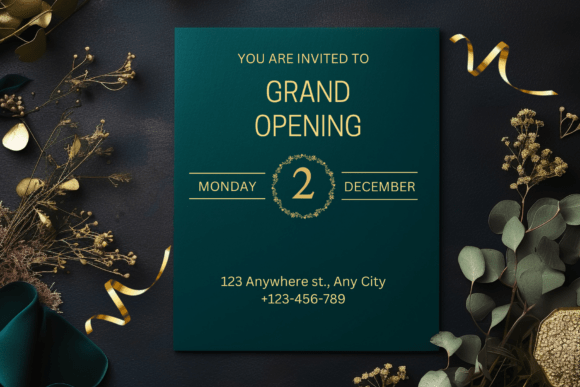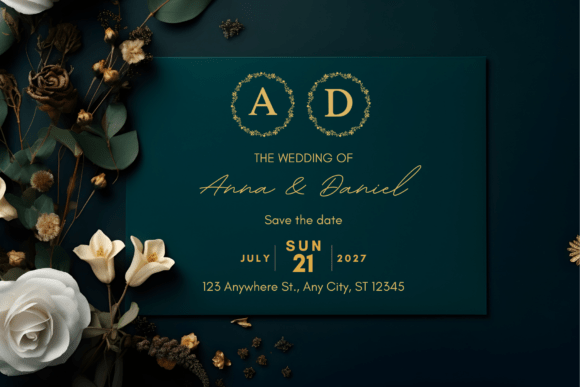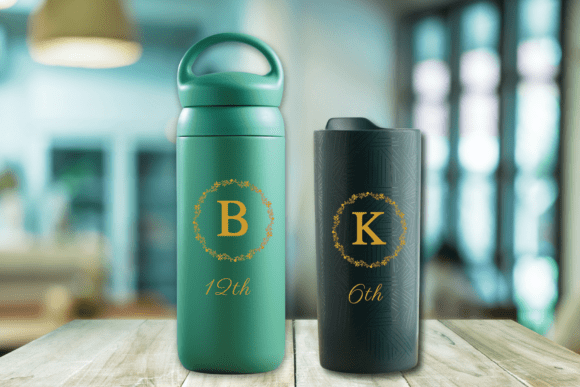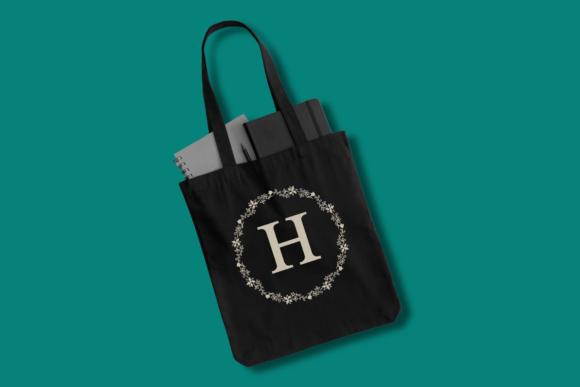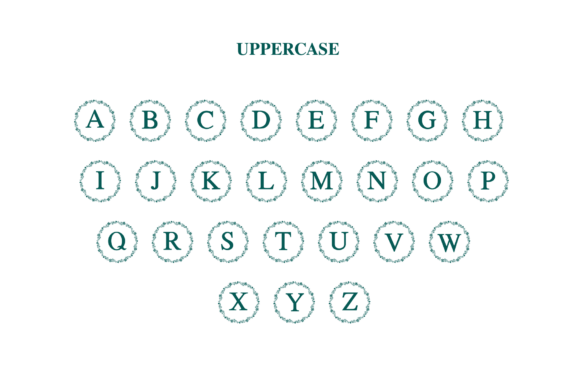
Elevate Your Celebrations with the Floral Wreath Monogram Font
Are you a designer, crafter, or DIY enthusiast looking for a unique and elegant font to make your special occasions stand out? Look no further than the Floral Wreath Monogram Font! This stunning font is designed to add a touch of charm and sophistication to any celebration, making it perfect for invitations, wedding cards, and more.
What is the Floral Wreath Monogram Font?
The Floral Wreath Monogram Font is a beautifully crafted font that features decorative letters inside a gorgeous flower round frame. The font is designed to evoke a sense of elegance and refinement, making it ideal for special occasions such as weddings, anniversaries, and birthdays. The floral wreath design adds a delicate and feminine touch to the font, making it perfect for brides, crafters, and designers who want to create something truly special.
Key Features of the Floral Wreath Monogram Font
• Elegant Design: The Floral Wreath Monogram Font features a stunning floral wreath design that adds a touch of sophistication to any project.
• Decorative Letters: The font includes beautifully designed letters that are perfect for creating custom monograms, invitations, and more.
• Perfect for Special Occasions: The font is designed specifically for special occasions such as weddings, anniversaries, and birthdays.
Uses for the Floral Wreath Monogram Font
The Floral Wreath Monogram Font is a versatile font that can be used for a variety of projects, including:
• Wedding Invitations: Create beautiful and elegant wedding invitations that set the tone for your special day.
• Wedding Cards: Design stunning wedding cards that will make your loved ones feel special.
• Party Decorations: Use the font to create custom party decorations, such as banners, garlands, and more.
• DIY Crafts: Add a touch of elegance to your DIY crafts, such as scrapbooking, card making, and more.
The Floral Wreath Monogram Font is a beautiful and elegant font that is perfect for designers, crafters, and DIY enthusiasts who want to add a touch of charm and sophistication to their special occasions. With its stunning floral wreath design and decorative letters, this font is sure to make your projects stand out. Whether you’re creating wedding invitations, wedding cards, or DIY crafts, the Floral Wreath Monogram Font is a great choice.